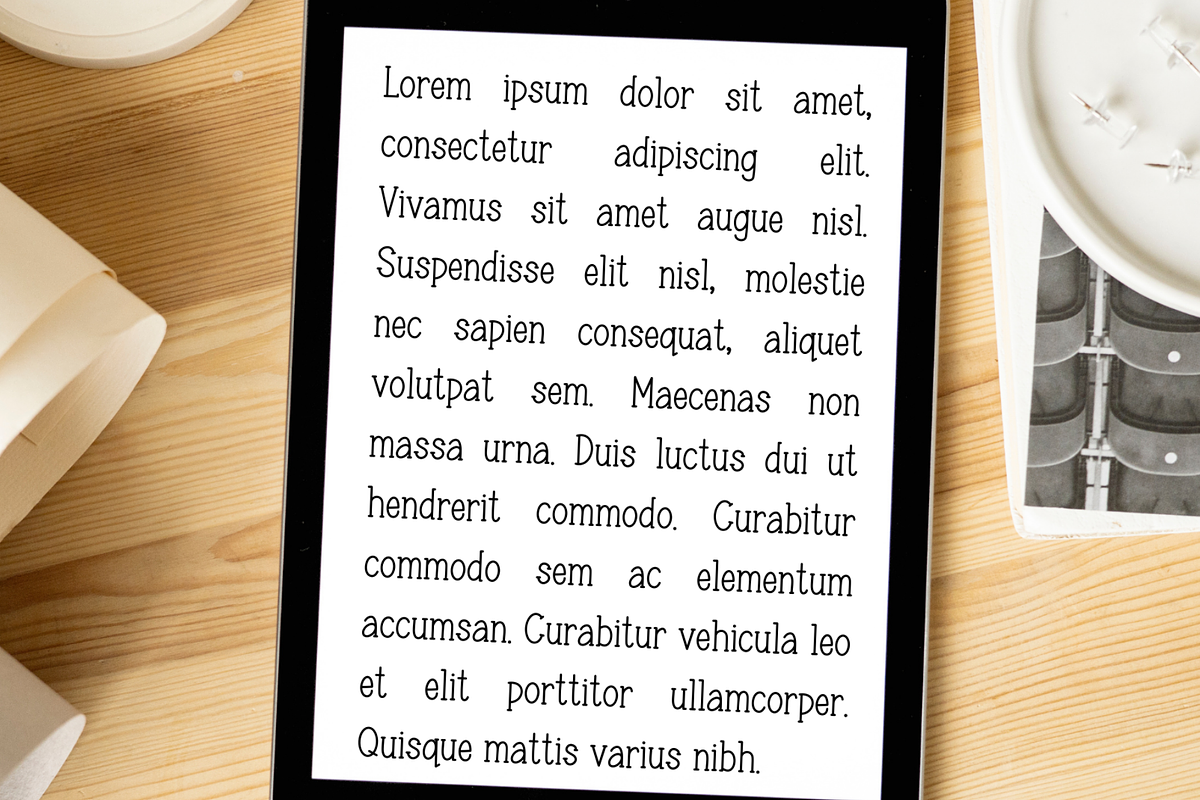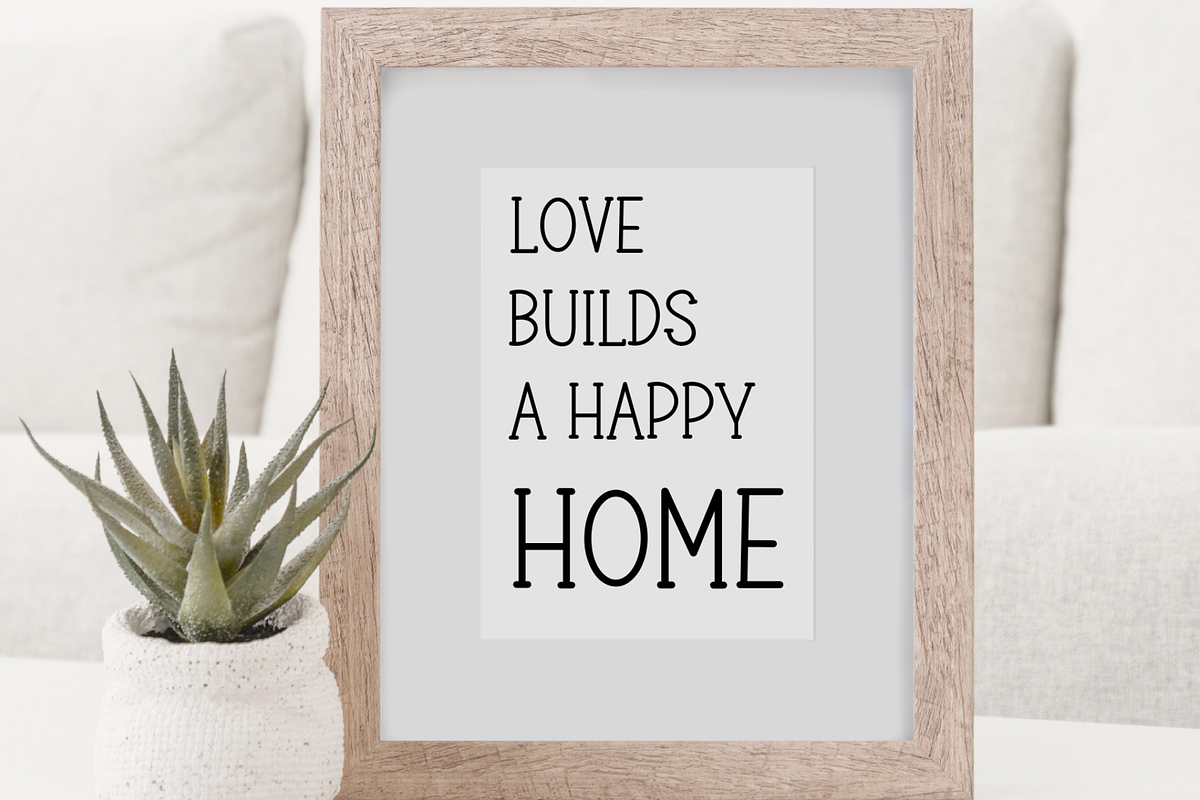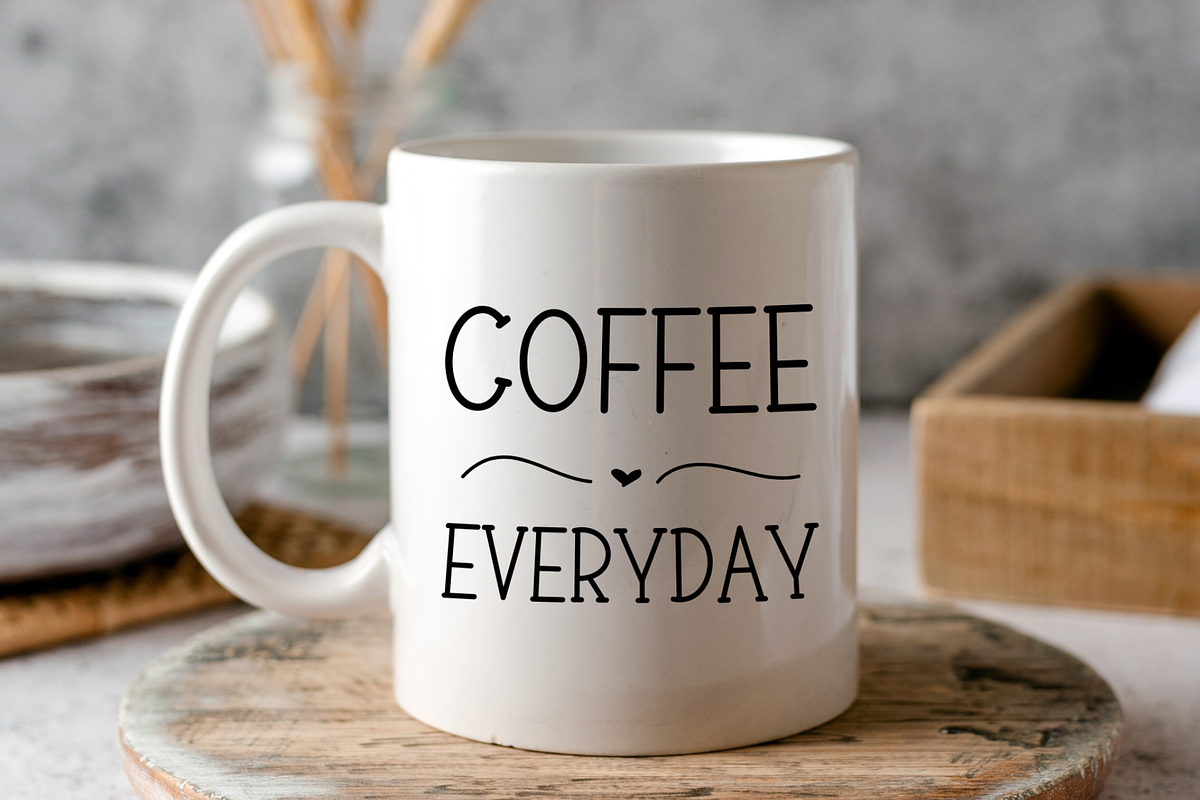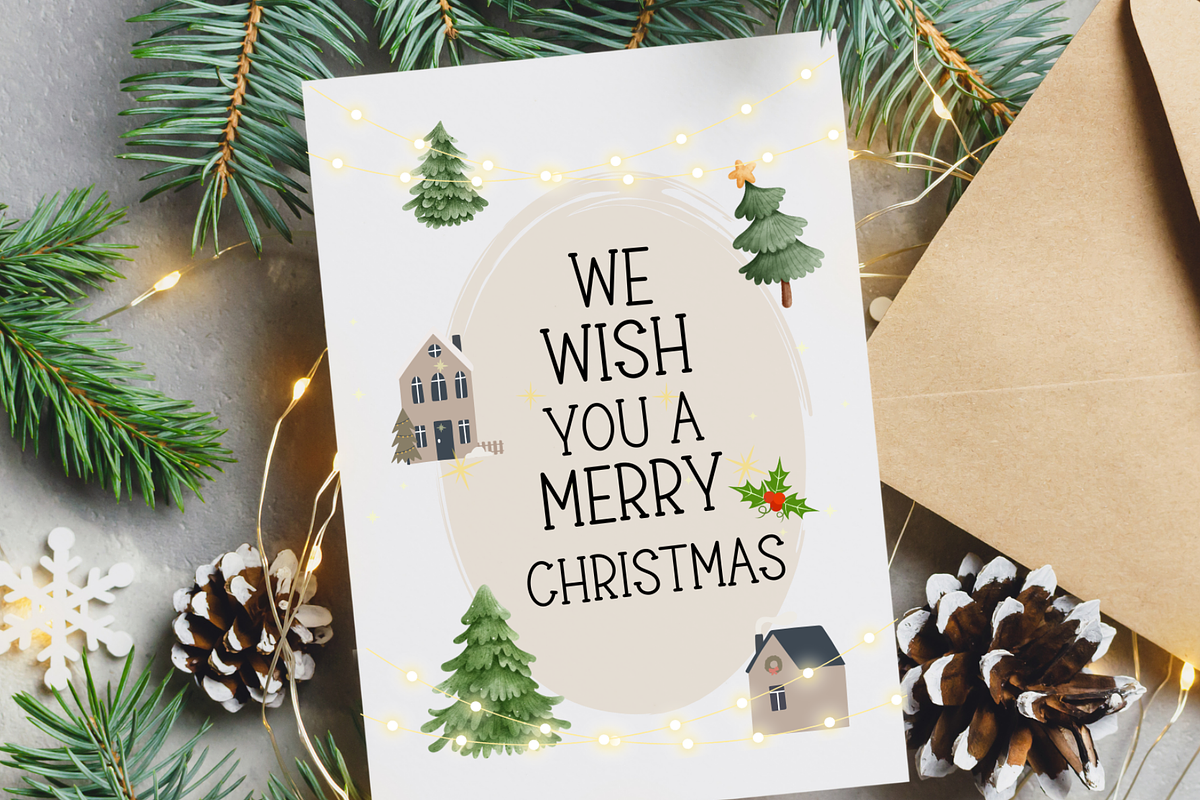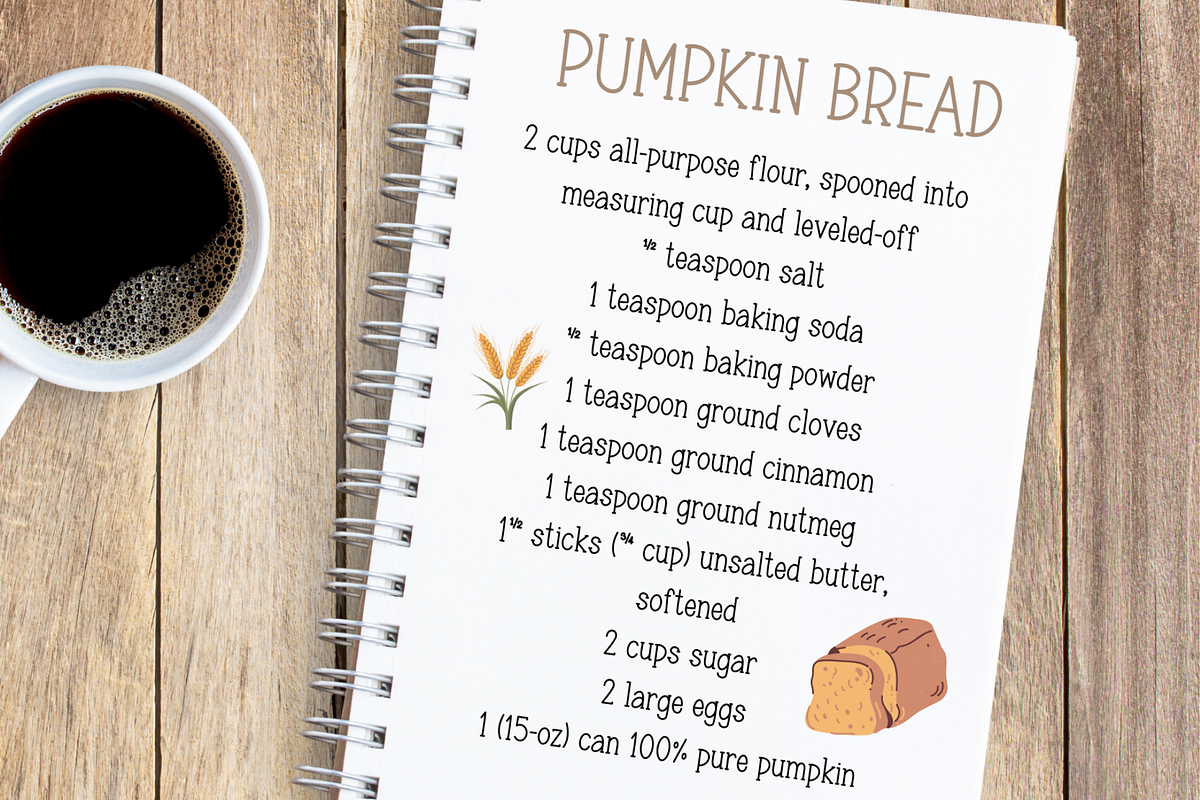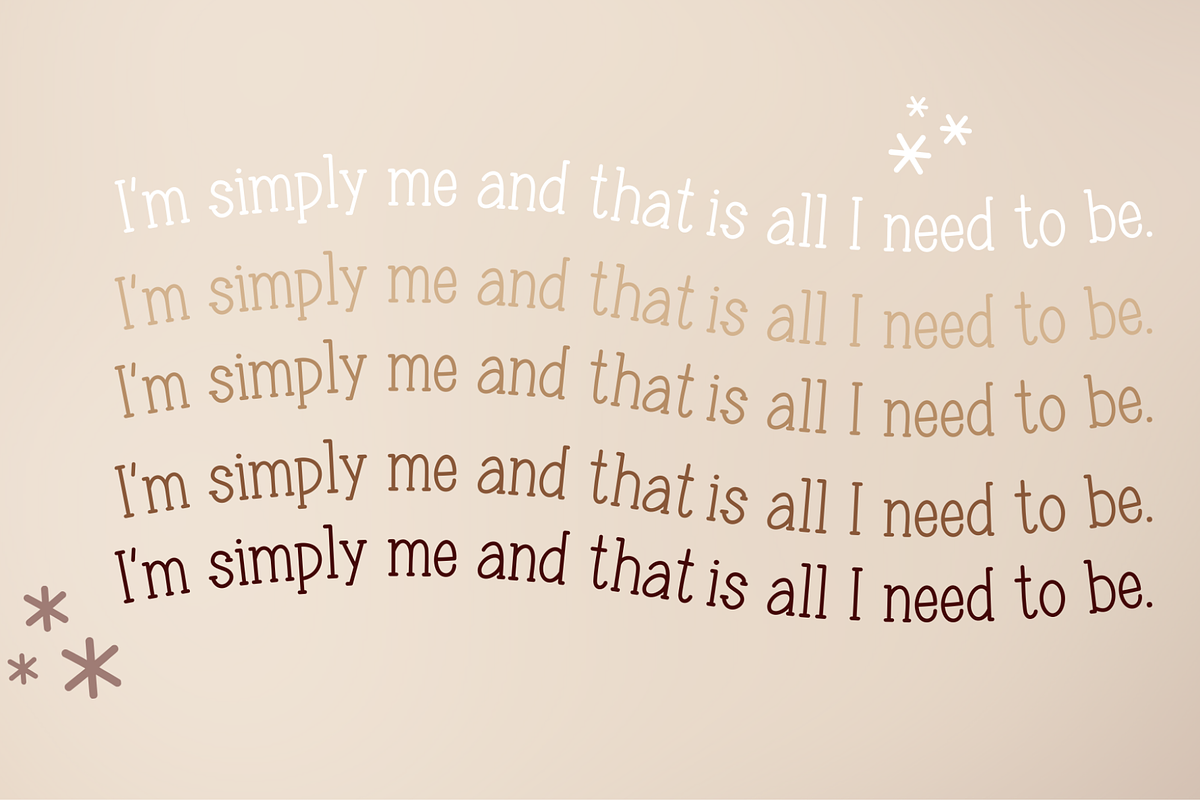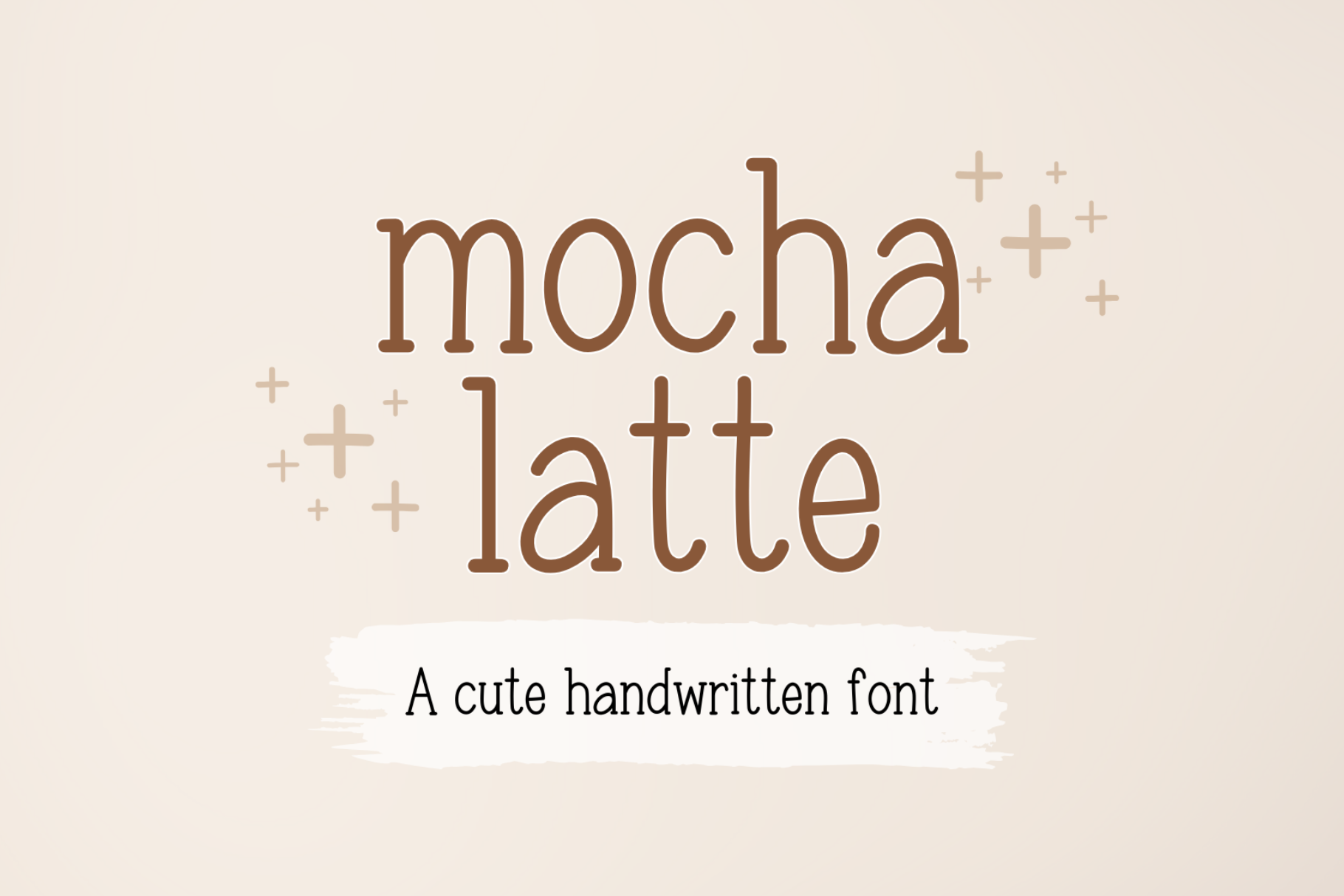
Mocha Latte Cute Handwritten Font
Mocha Latte is a handwritten font that is cute , playful , neat and clean. It is good for digital prints, greeting cards, quotes for facebook and Instagram, Goodnote, planner, journal and any occasion presentations.